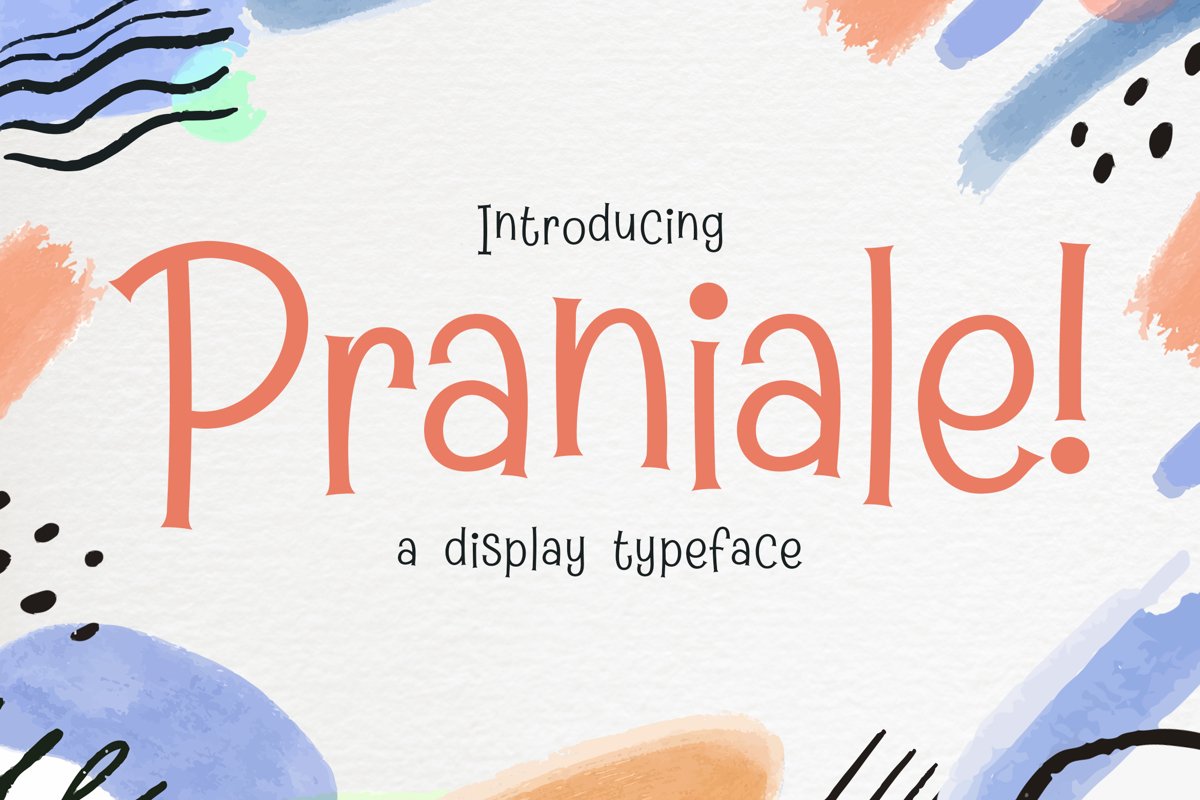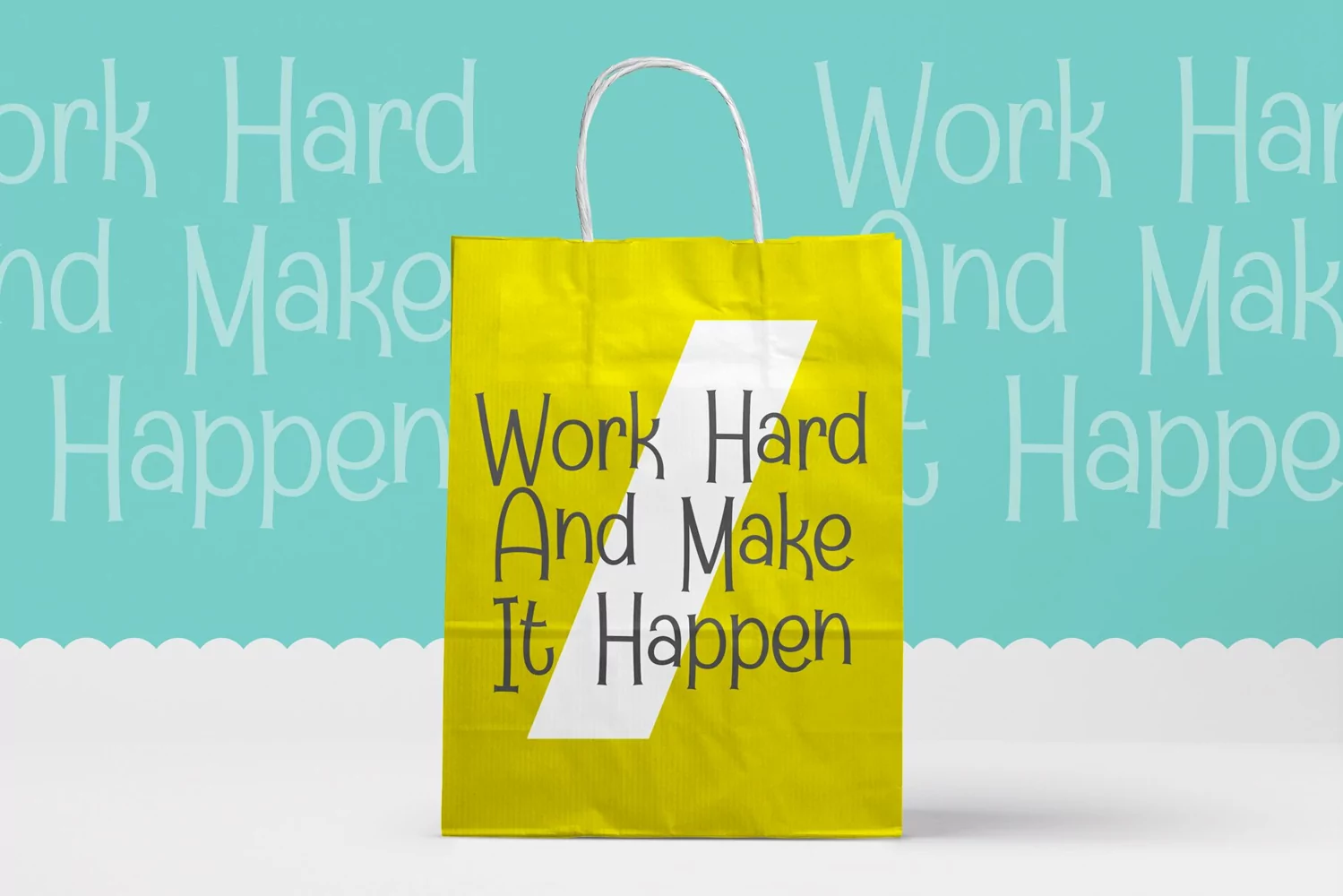
Praniale is a display typeface. Perfect for display, mockup, quotes, poster, logo, logotype, packaging, merchandise, business card, invitation, clothing, branding, florist needs, and many more.